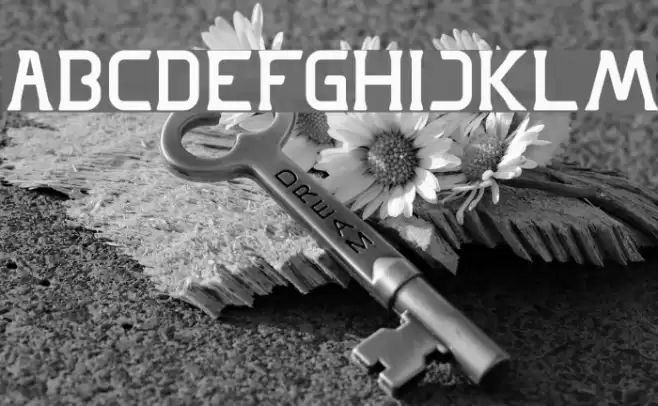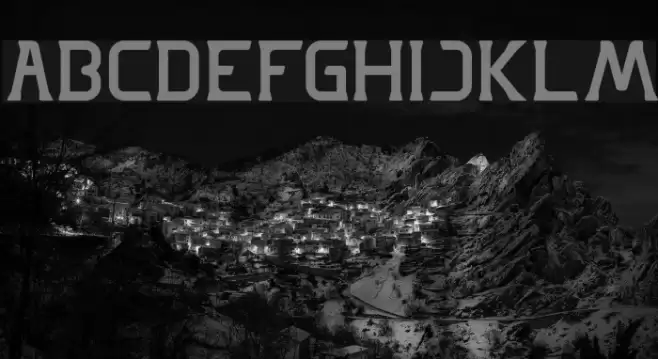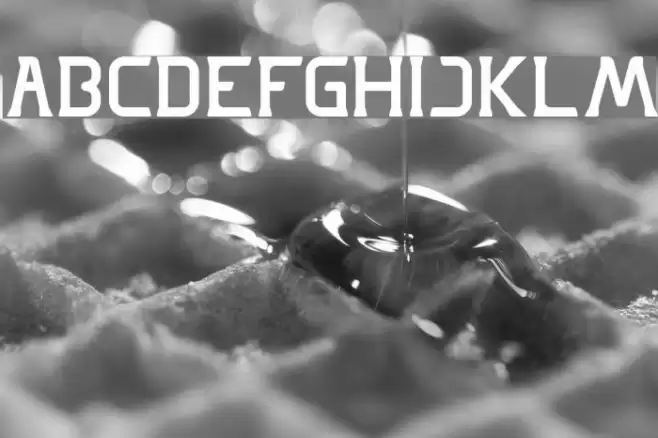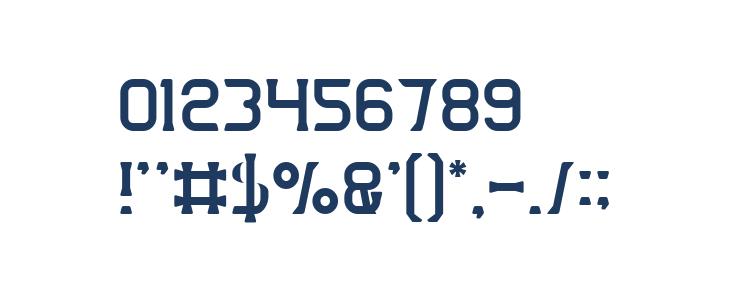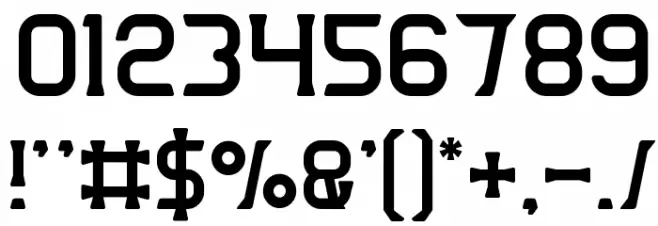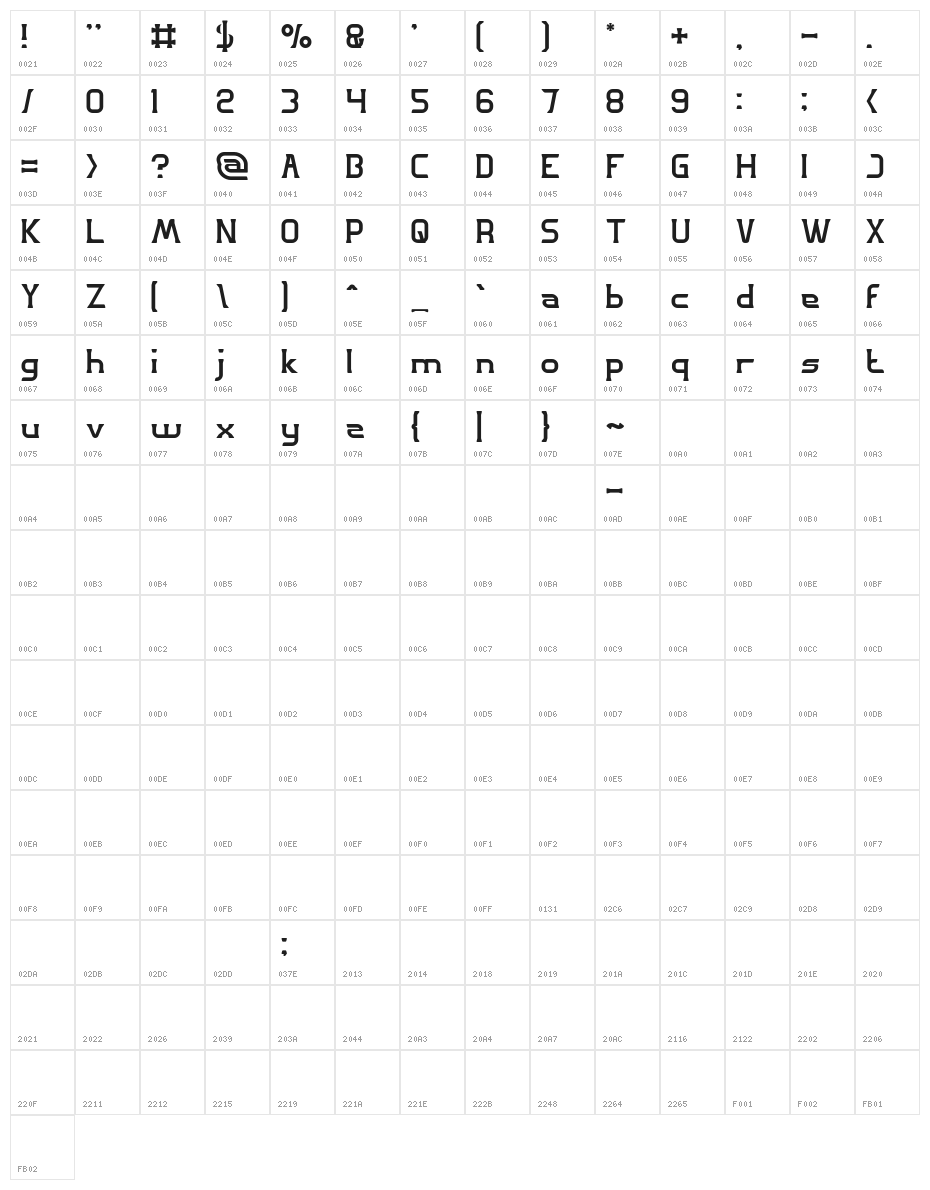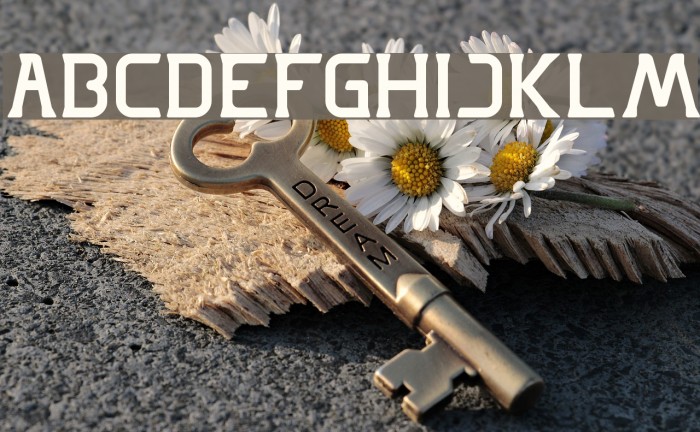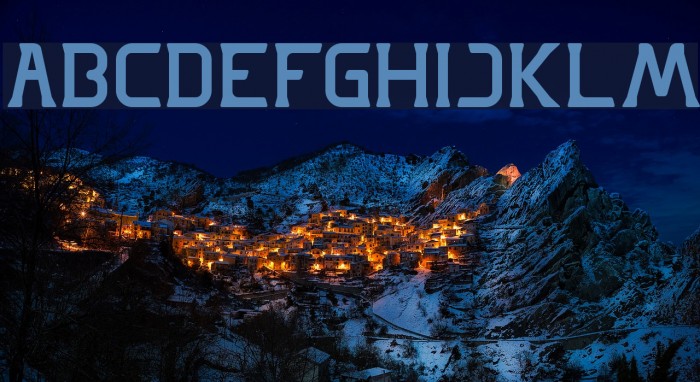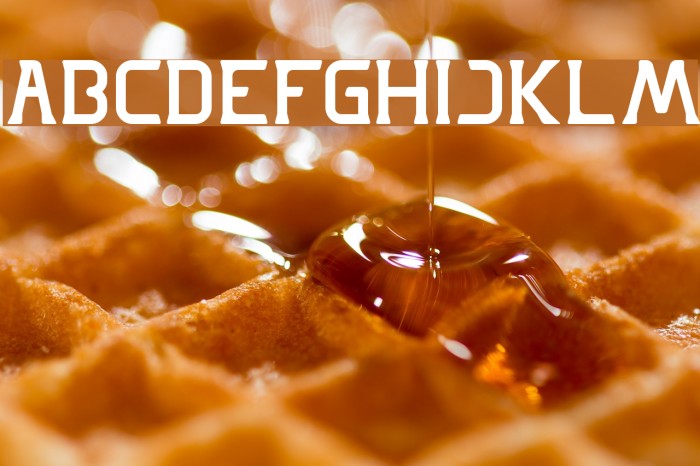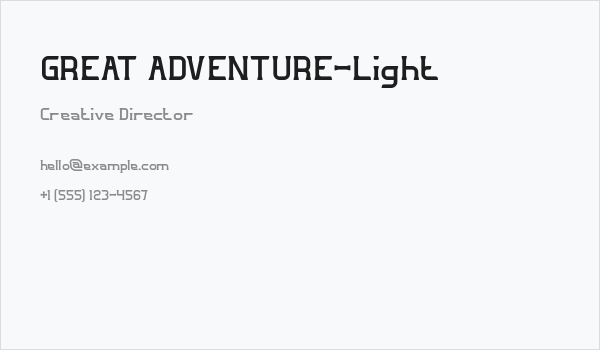
GREAT ADVENTURE-Light Font
GREAT ADVENTURE-Light Description
This font features a bold and adventurous style with a modern twist. The uppercase letters are strong and geometric, with a slight curvature that adds a unique flair. The lowercase letters maintain a consistent style, offering a harmonious blend of straight lines and subtle curves. Numbers are clear and distinct, ensuring readability. Special characters are designed with the same boldness, making them stand out effectively. The overall design is both functional and visually striking, suitable for various creative applications.
A bold, geometric font with a modern and adventurous style from Uncategorized fonts.
- Proposed Projects: Ideal for branding, posters, adventure-themed designs, and digital media projects.